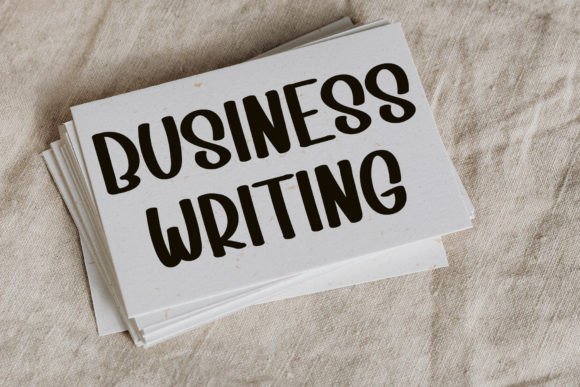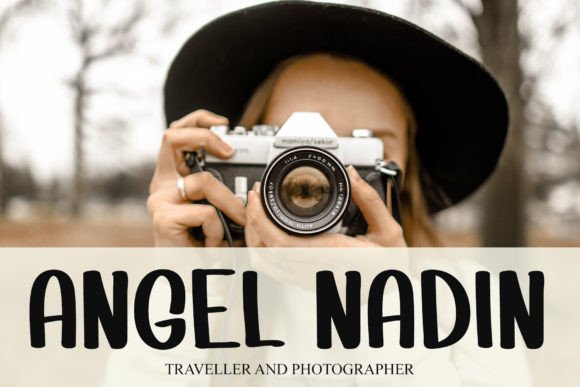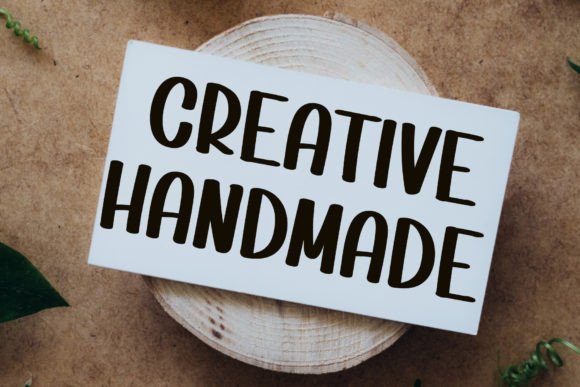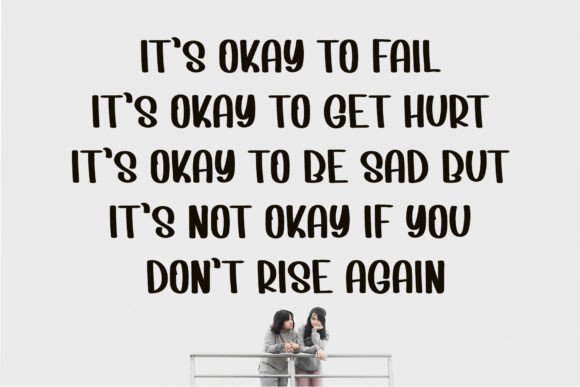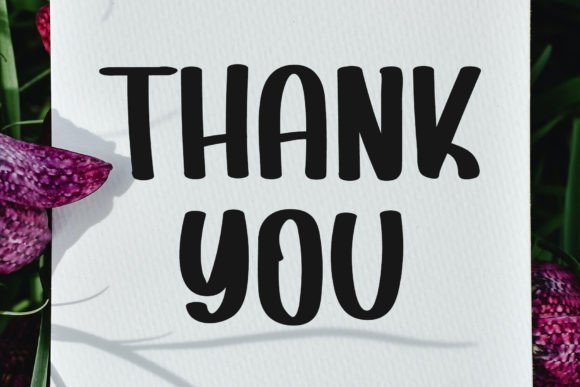
Introducing Blushed Font: The Perfect Addition to Your Cheerful Designs
Are you tired of using the same old fonts in your designs? Do you want to add a touch of fun and quirkiness to your projects? Look no further than Blushed Font! This delightful display font is perfect for use on cheerful topics and is sure to bring a smile to your audience’s faces. In this article, we’ll take a closer look at Blushed Font, its features, and how you can use it to take your designs to the next level.
A Font that’s Full of Personality
Blushed Font is a fun and quirky display font that’s designed to add a touch of whimsy to your designs. Its unique and playful style makes it perfect for use on cheerful topics, such as children’s themed designs, party invitations, and more. The font’s bold and eye-catching appearance is sure to grab attention and make your designs stand out from the crowd.
Perfect for Children’s Themed Designs
One of the key features of Blushed Font is its suitability for children’s themed designs. The font’s playful and fun style is reminiscent of childhood, making it perfect for use on designs aimed at kids. Whether you’re creating a birthday party invitation, a children’s book, or a kids’ craft project, Blushed Font is sure to add a touch of magic to your design. When combined with bright colors, the font really comes alive and is sure to delight your audience.
Blushed Font is PUA (Private Use Area) encoded, which means that you can access all of the amazing glyphs and ligatures with ease. PUA encoding allows you to access a wide range of special characters and glyphs that are not available in standard fonts. This means that you can add even more personality and flair to your designs, making them truly unique and eye-catching.
So, what are the key features and benefits of Blushed Font? Here are just a few:
- Fun and quirky display font: Perfect for use on cheerful topics and children’s themed designs.
- PUA encoded: Easy access to all glyphs and ligatures.
- Bold and eye-catching: Grabs attention and makes your designs stand out.
- Playful and whimsical: Adds a touch of magic to your designs.
- Suitable for a range of projects: From children’s books to party invitations and more.
How to Use Blushed Font in Your Designs
So, how can you use Blushed Font in your designs? Here are a few ideas to get you started:
- Children’s book titles: Use Blushed Font to create eye-catching titles for your children’s book.
- Party invitations: Add a touch of fun and whimsy to your party invitations with Blushed Font.
- Kids’ craft projects: Use Blushed Font to add a personal touch to your kids’ craft projects.
- Social media graphics: Use Blushed Font to create fun and engaging social media graphics.
In conclusion, Blushed Font is a fun and quirky display font that’s perfect for use on cheerful topics. Its unique and playful style makes it perfect for children’s themed designs, and its PUA encoding makes it easy to access a wide range of glyphs and ligatures. Whether you’re a designer, crafter, or DIY enthusiast, Blushed Font is sure to add a touch of magic to your designs. So why not give it a try and see the difference it can make?